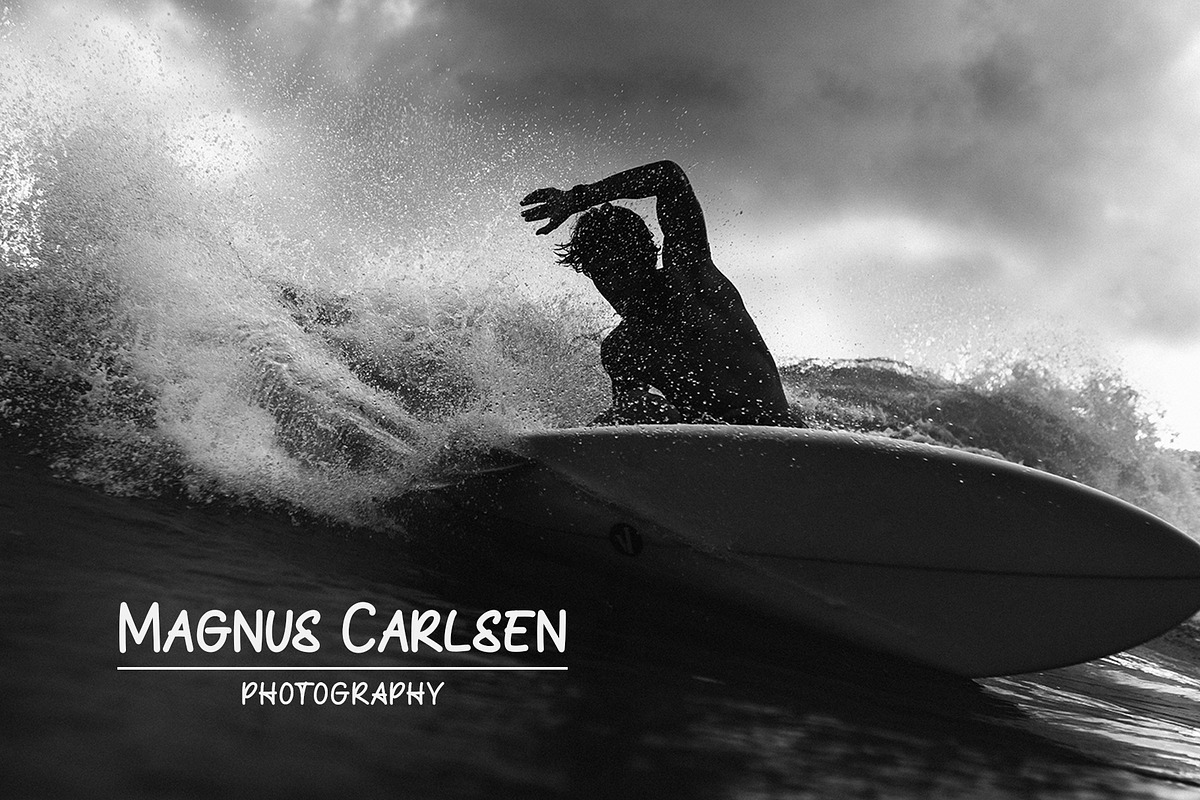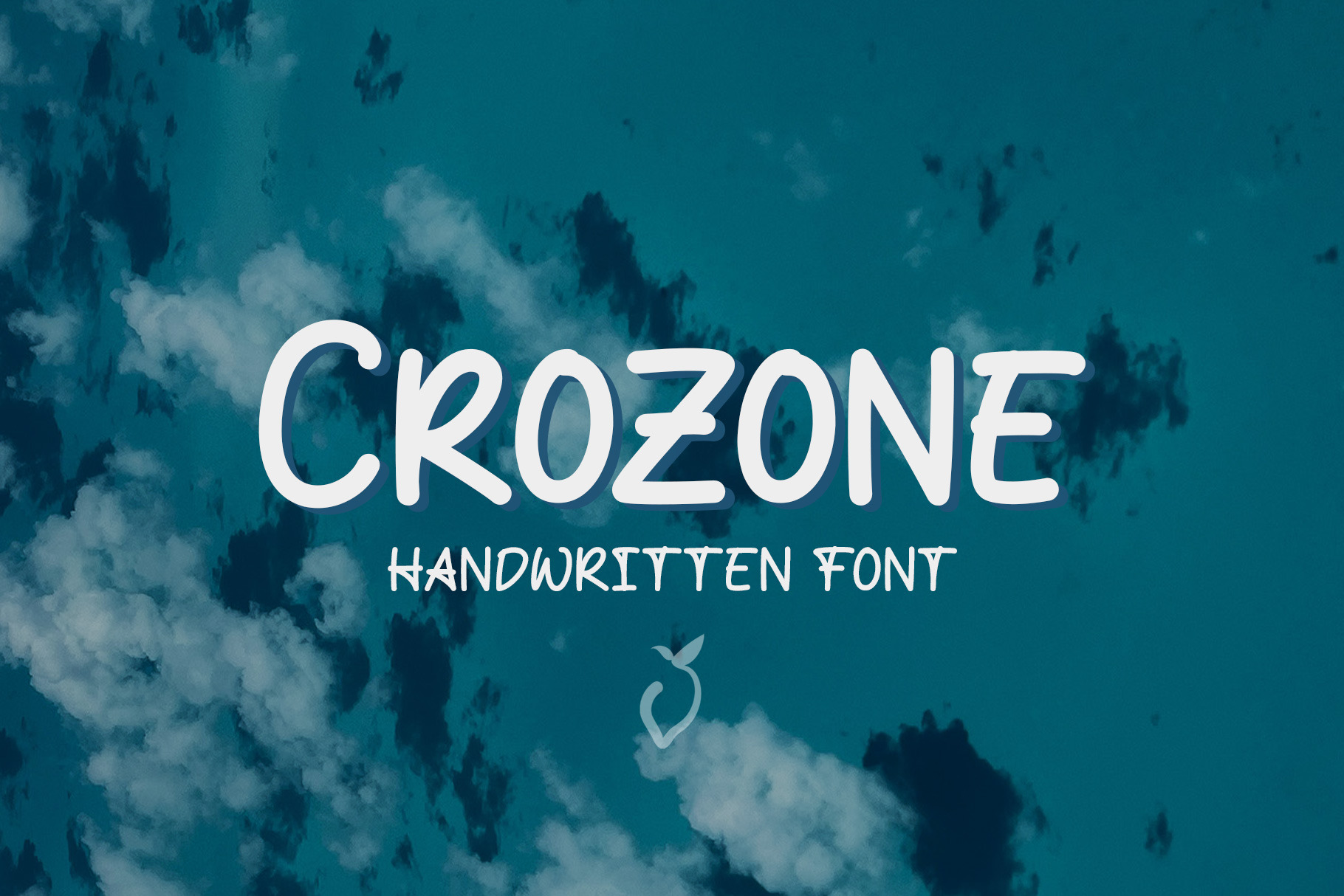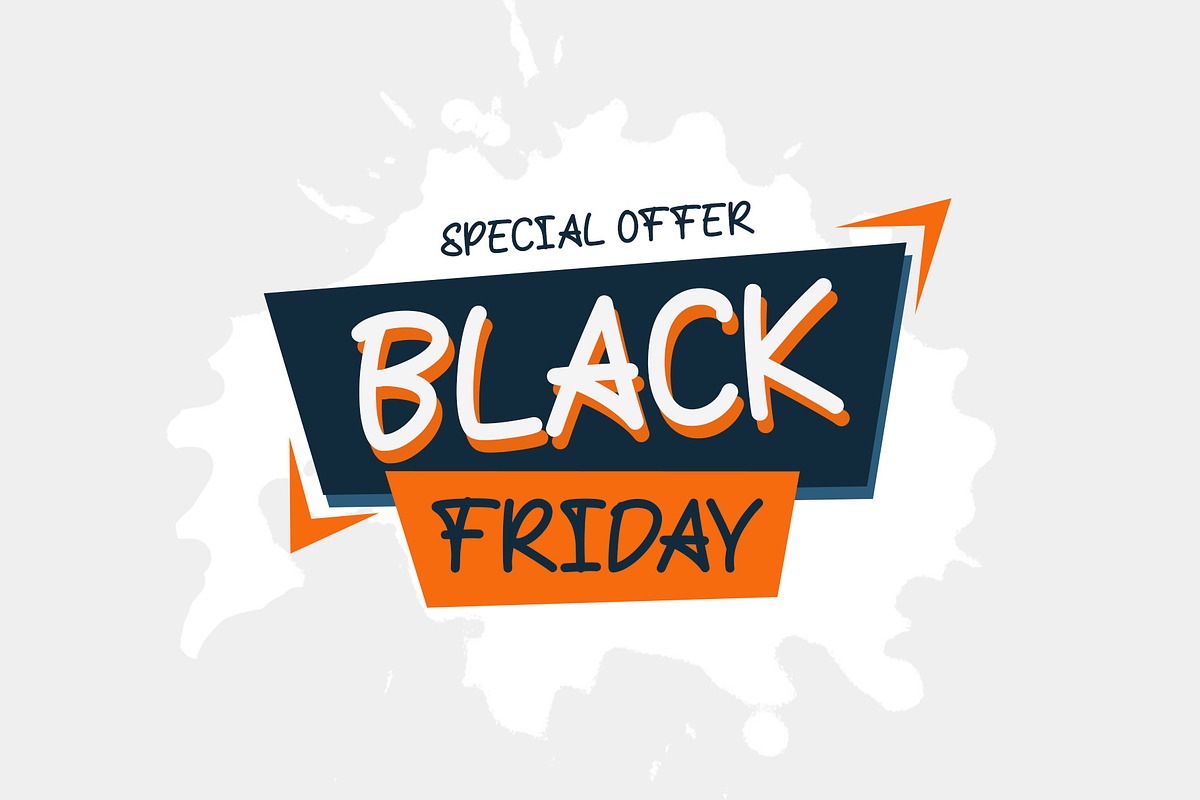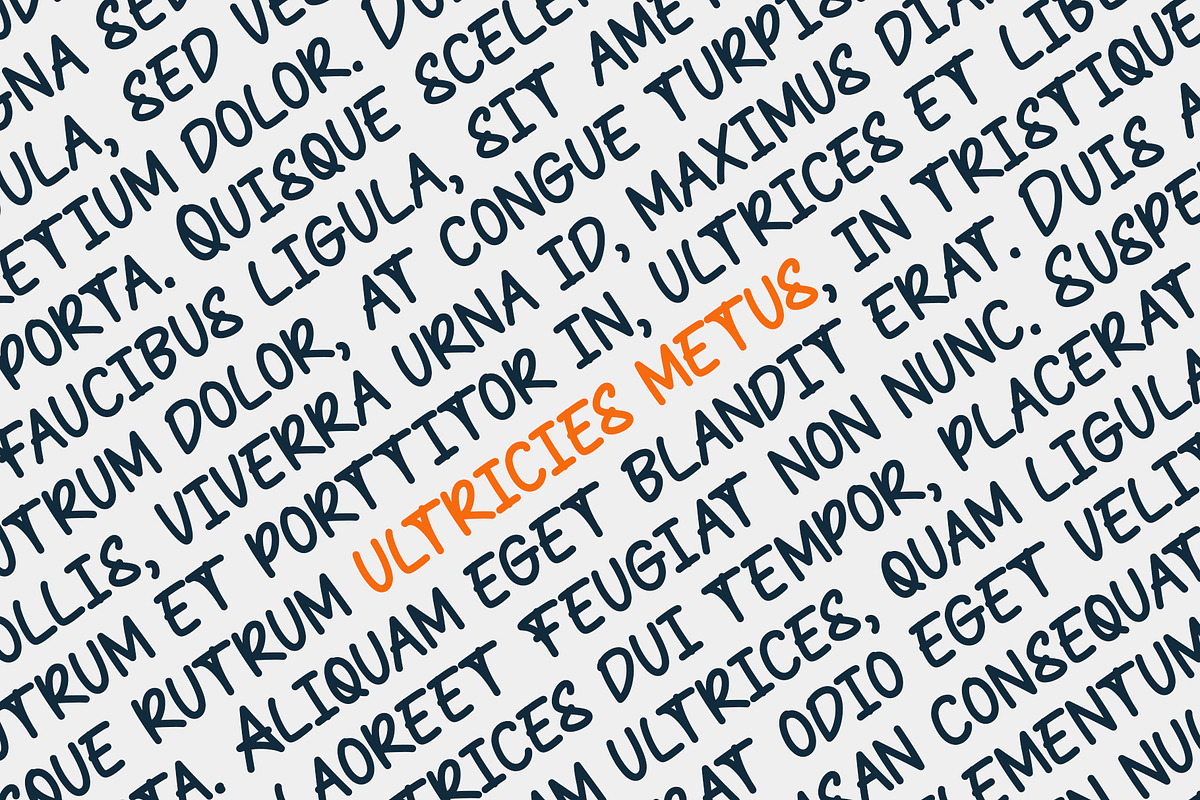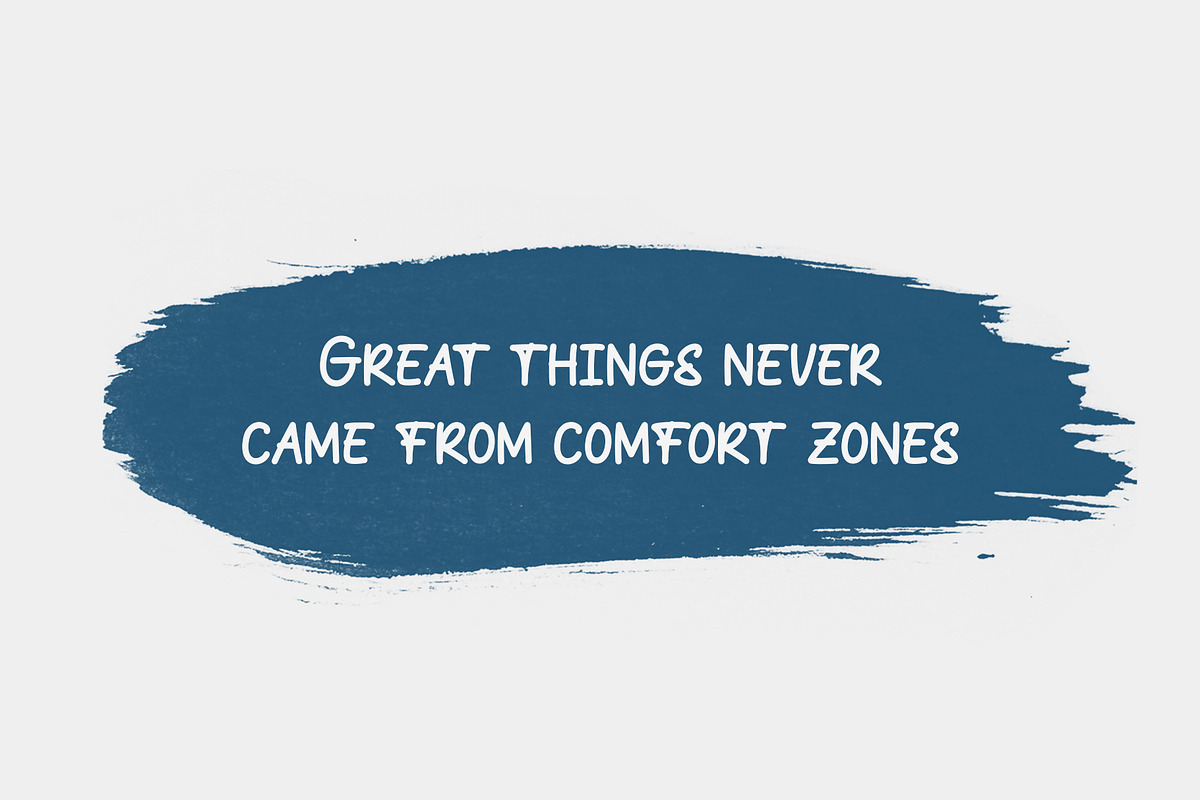
Crozone | Handwritten Font
Crozone is a relaxed handwritten font. It’s perfect for branding, quotes, stationery design, social media, packaging, watermark, magazine layout, prints, and more!